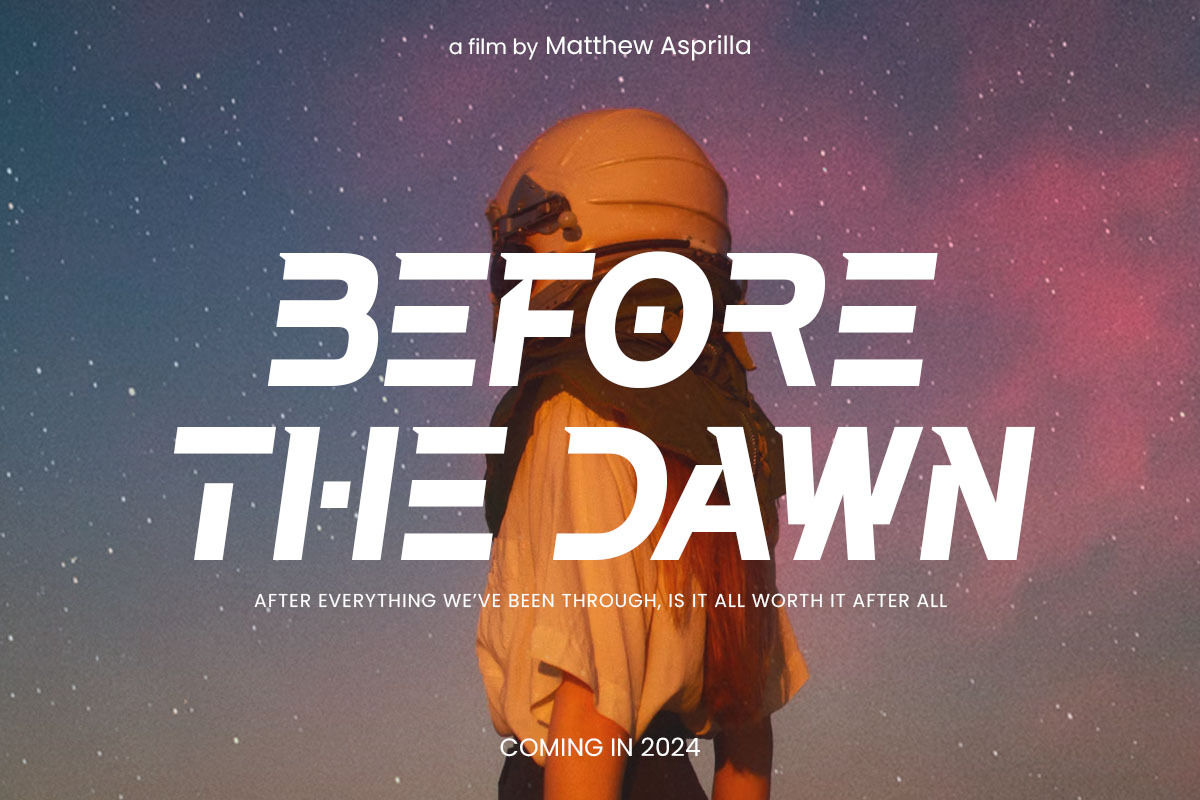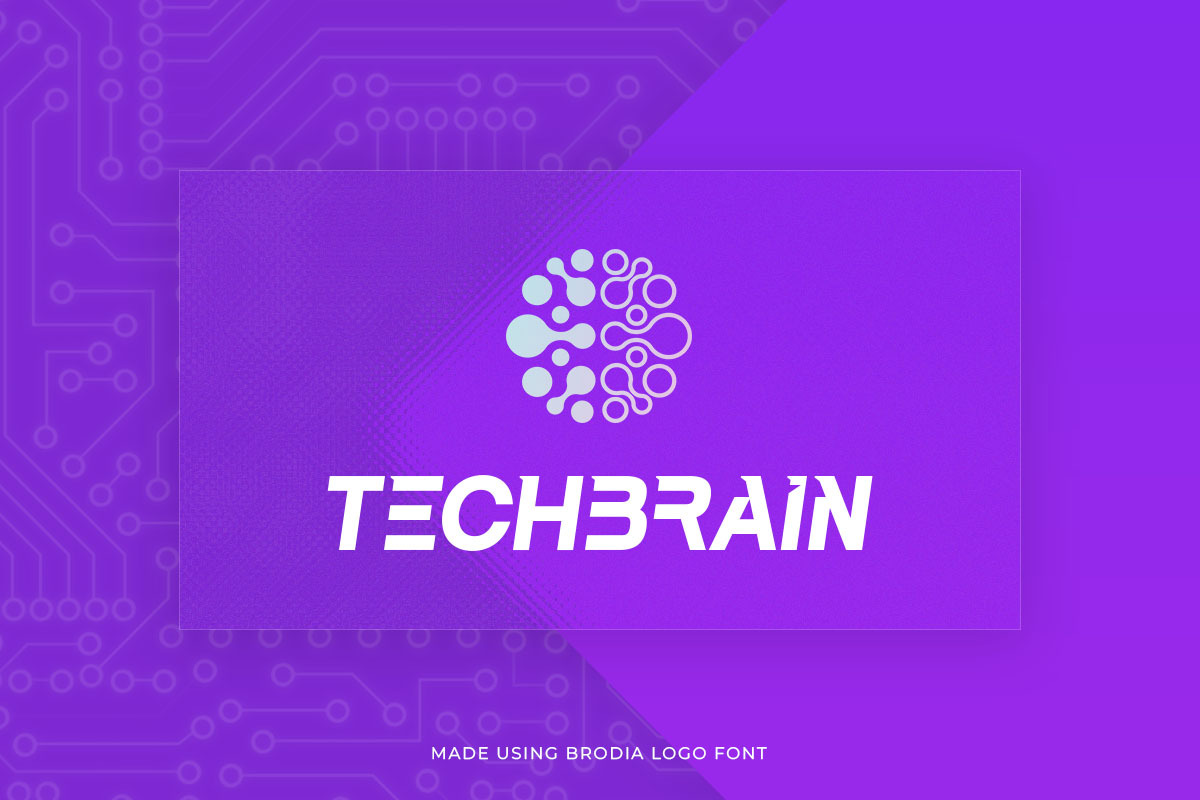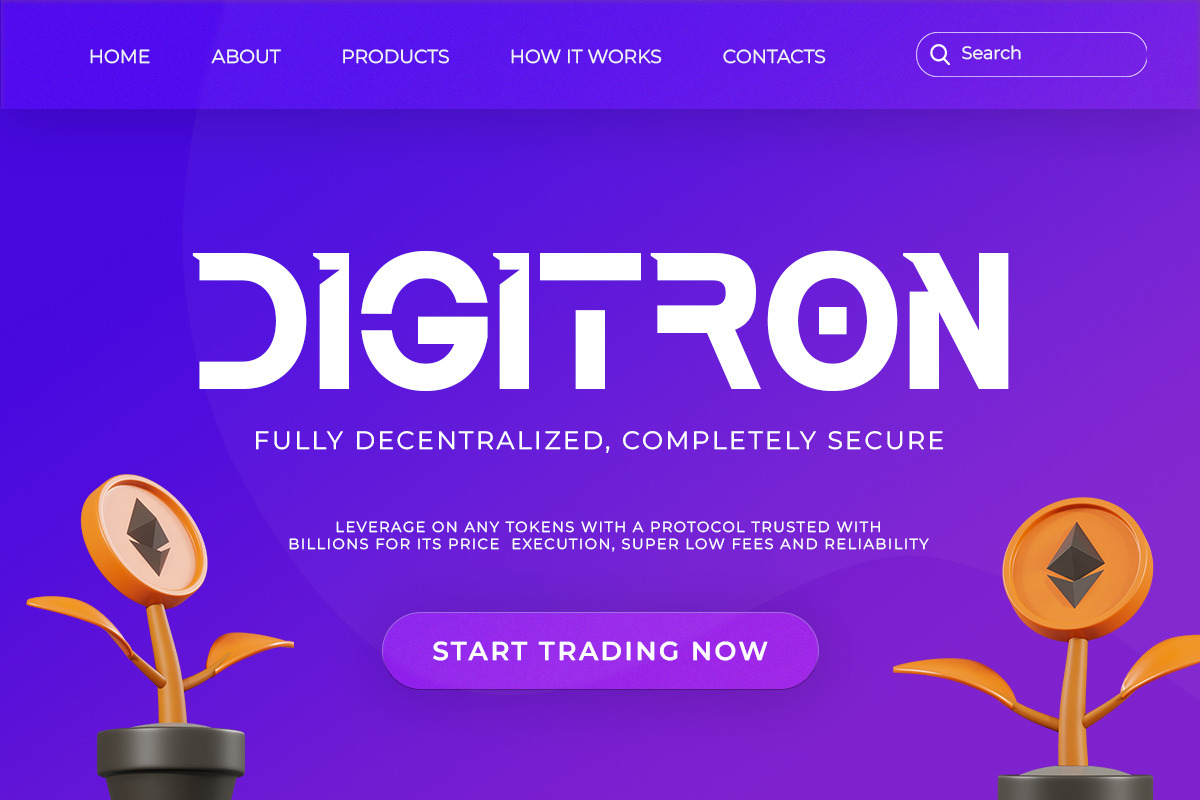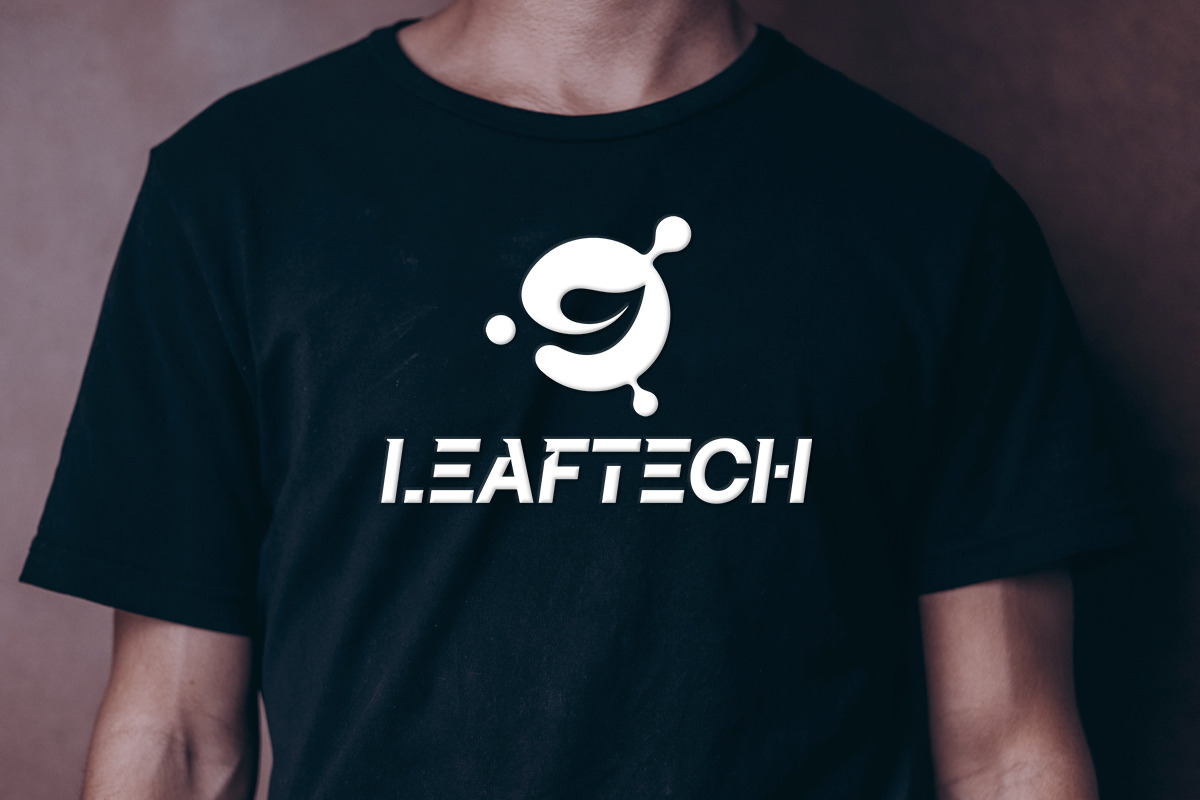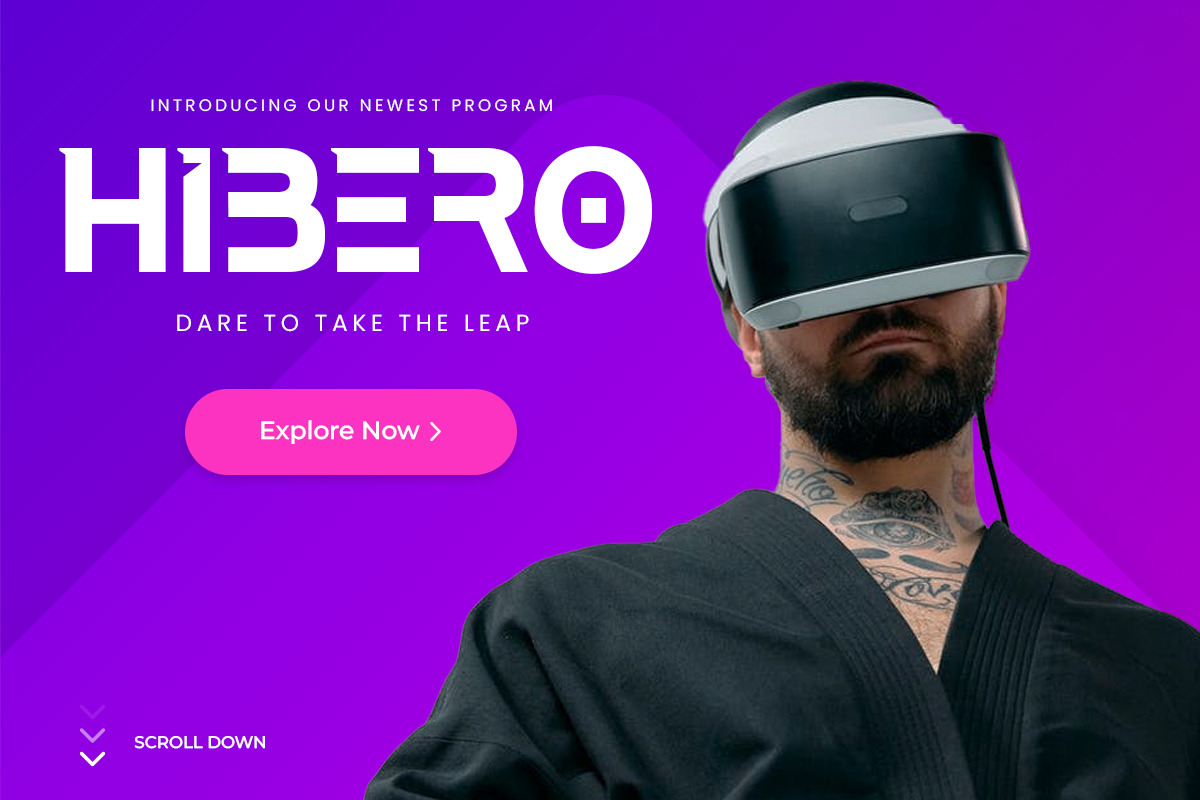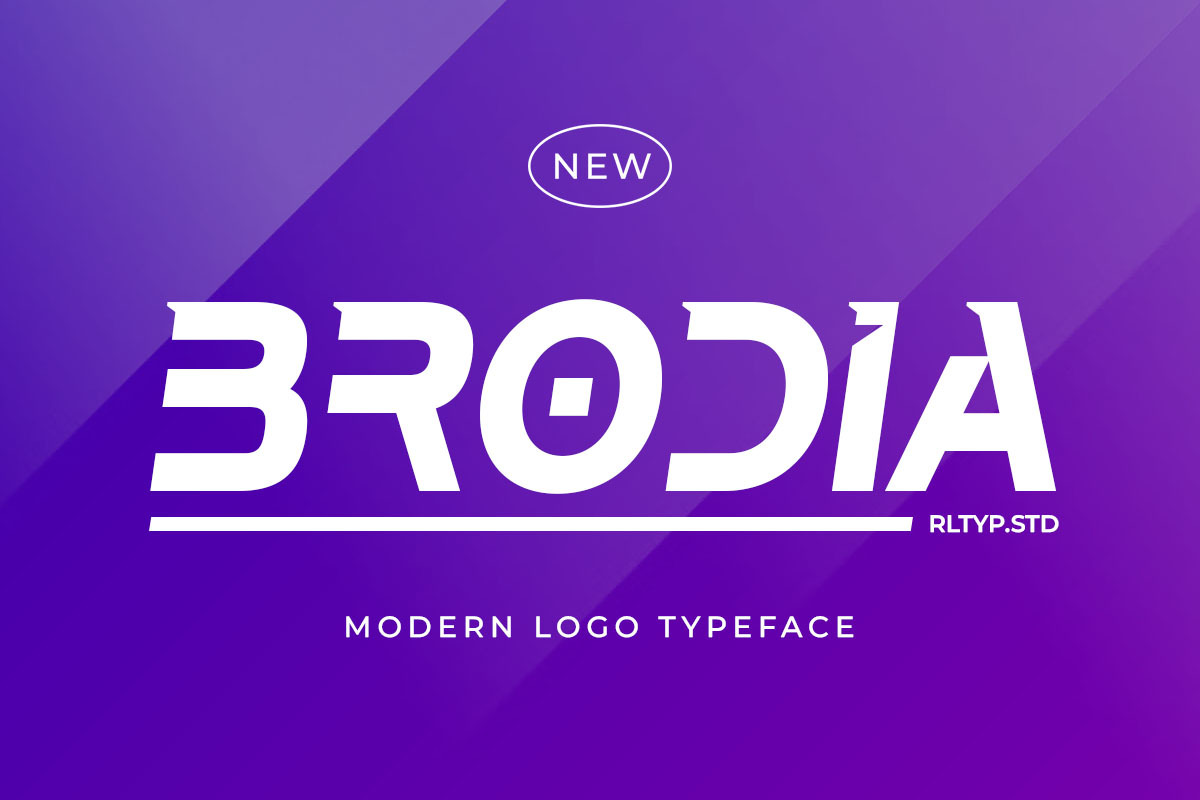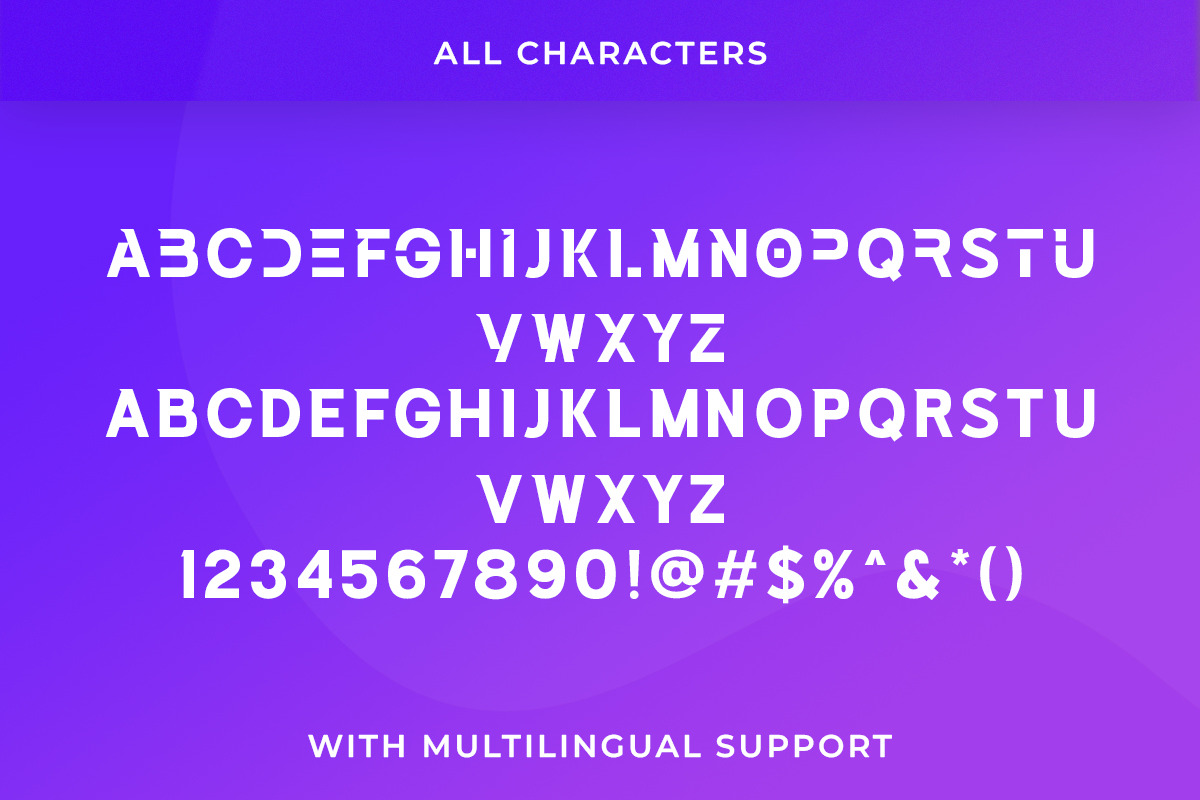
Brodia - Modern Logo Typeface
Introducing, Brodia. Brodia is a modern logo font with different uppercase and lowercase that will make your design futuristic and modern. This font is perfect for your logo, branding, movie poster, or logotype.